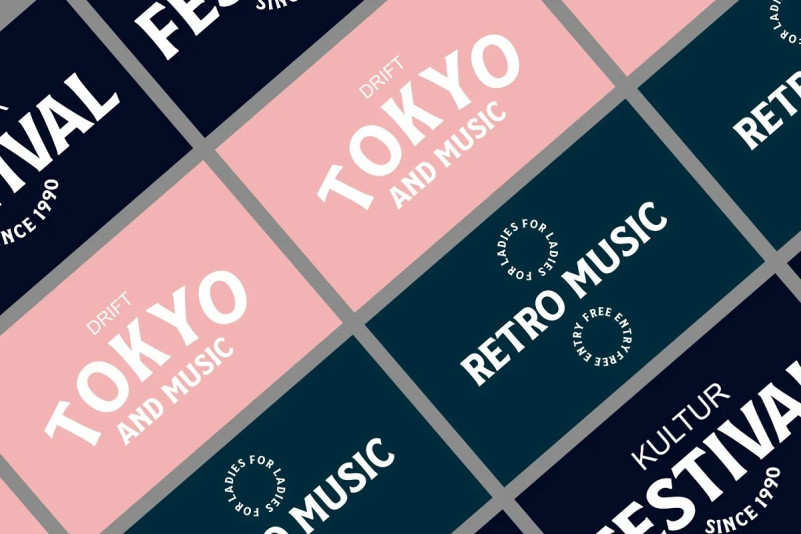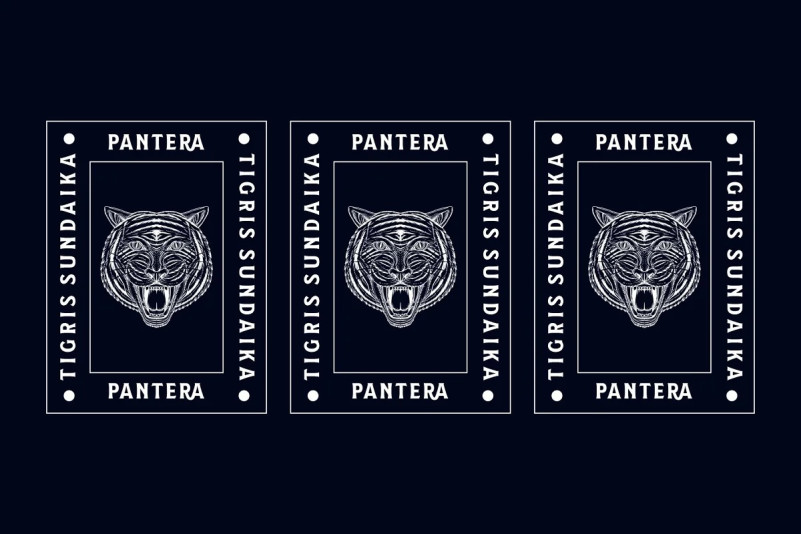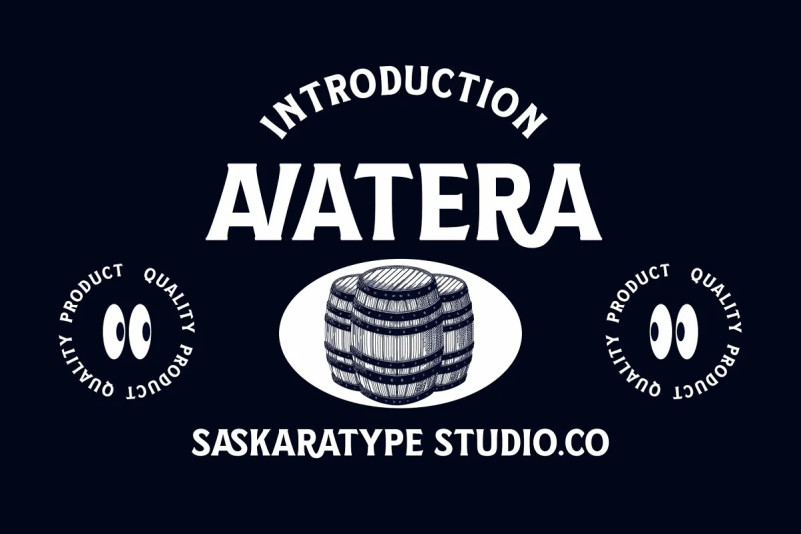
Avatera Font
Avatera is a vintage and unique font with a trendy vintage and retro feel. From poster designs to t-shirts and packaging, Avatera provides minimal alternatives to your designs.
Modern bold serif typography has a number of alternatives and bindings included. Incorporate bold shapes to give your piece a more quirky and hipster attitude. Easy to make professional cool type lock.